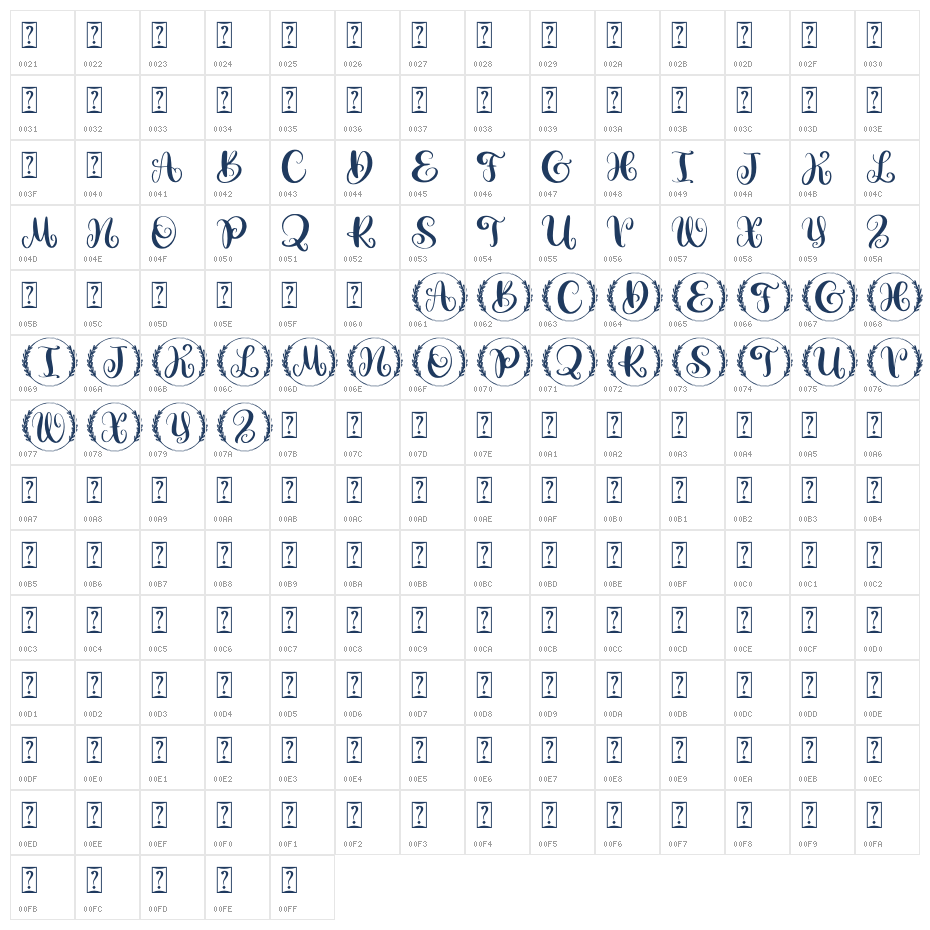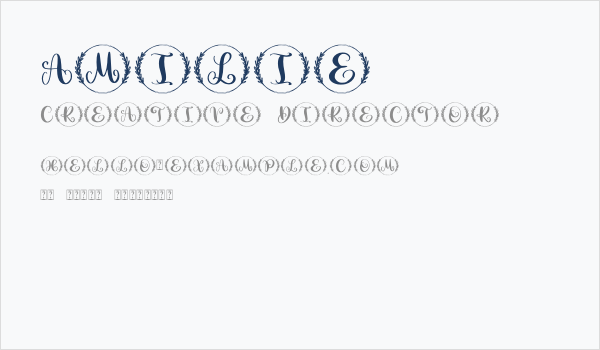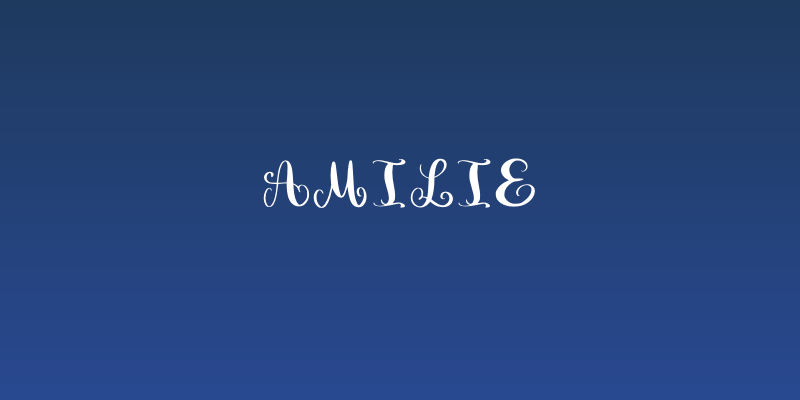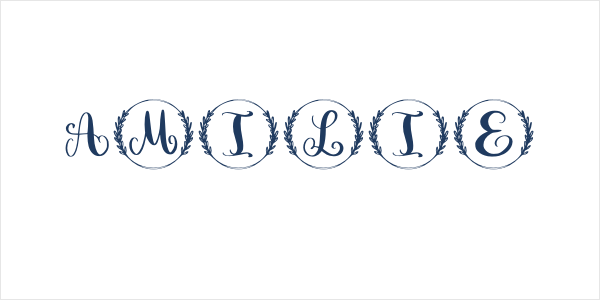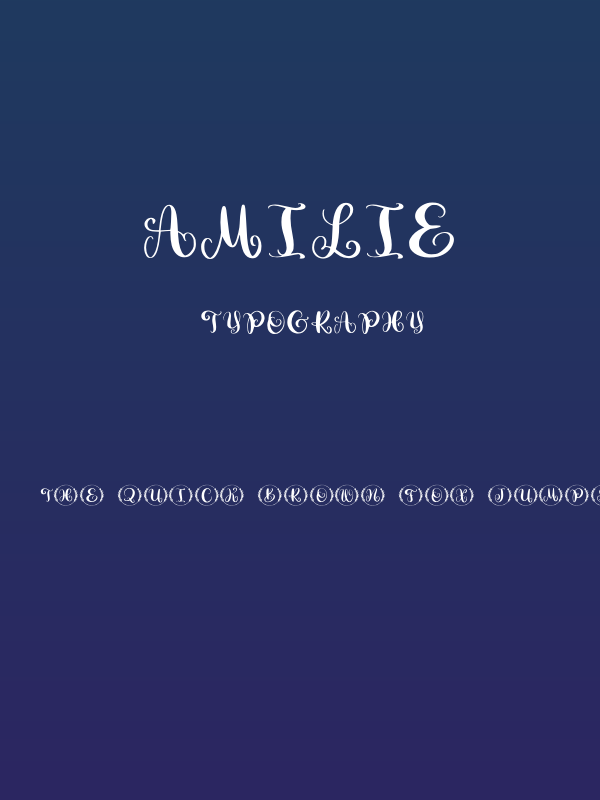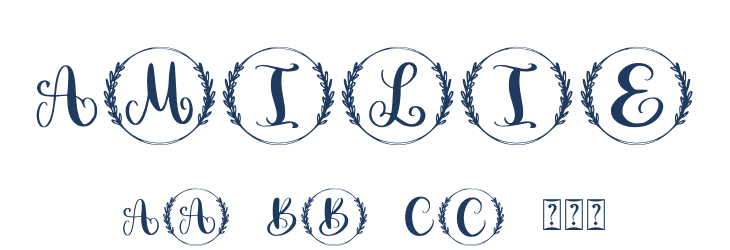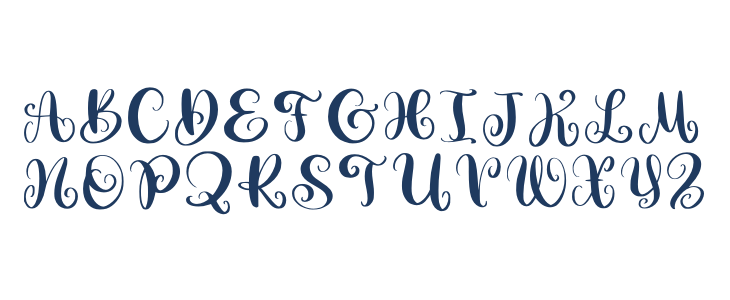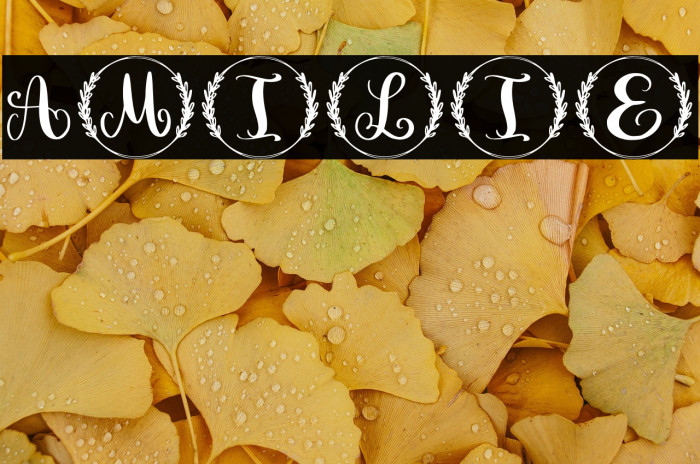
Amilie Font
Amilie Description
A decorative, cursive script font with elegant, flowing lines and ornate details, suitable for invitations, logos, or decorative headings.
| Overall Style | Elegant, Decorative, Vintage |
| Use Case | Headlines, Logos, Invitations, Decorative Text |